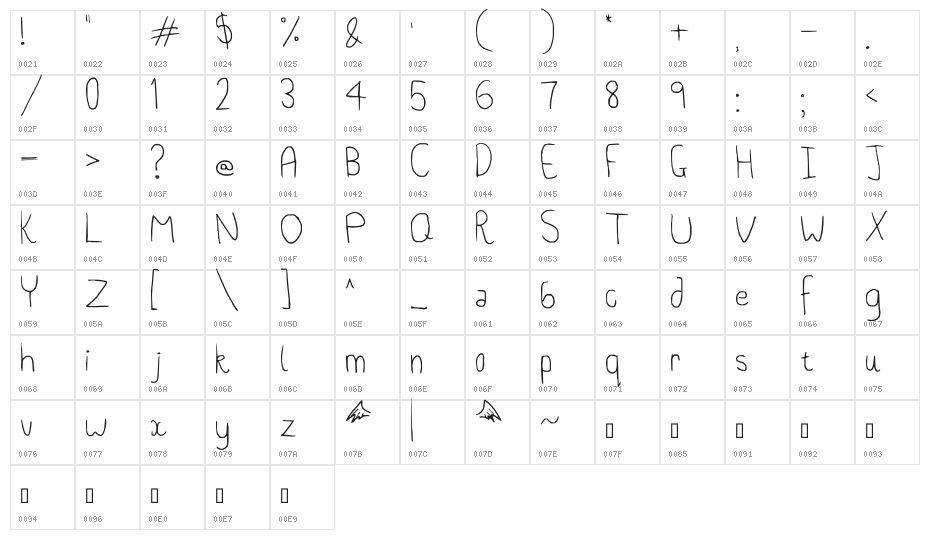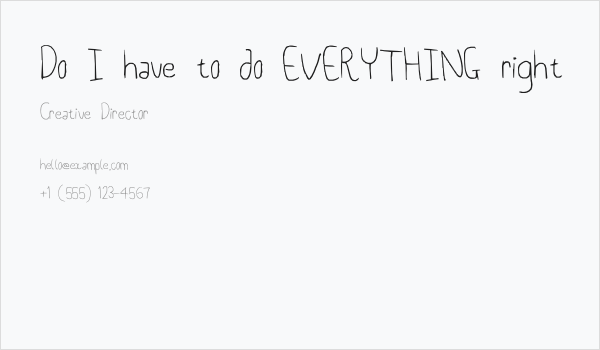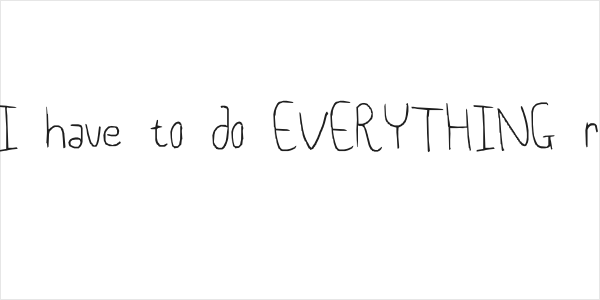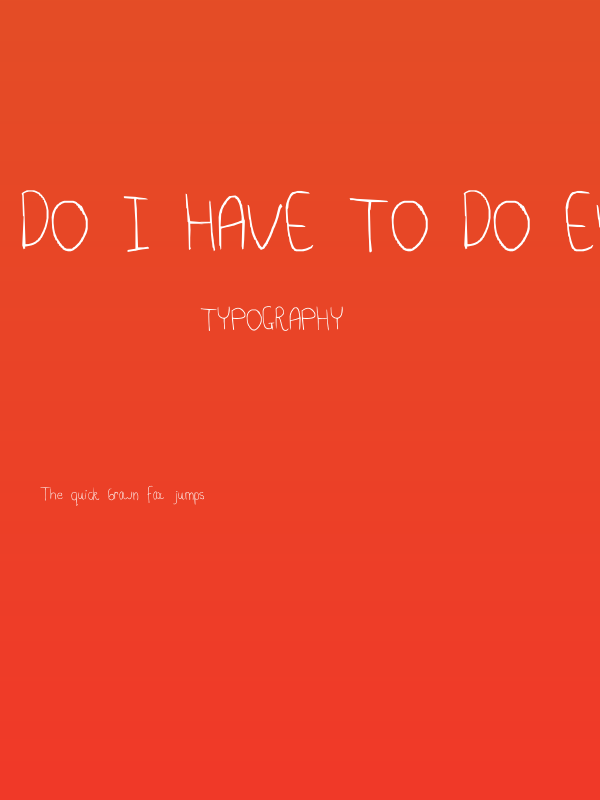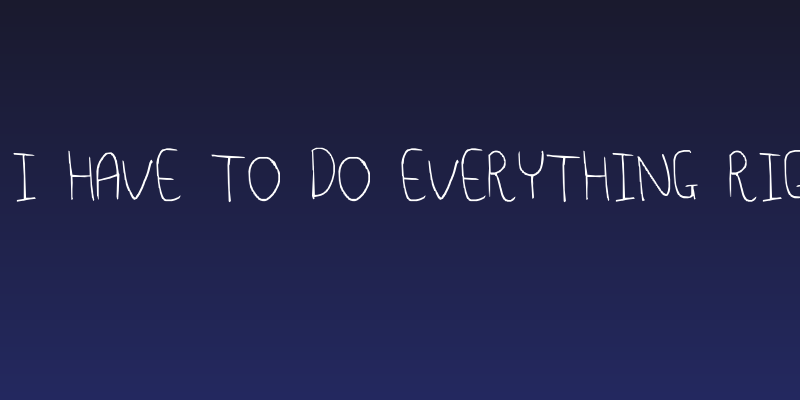
Do I have to do EVERYTHING right Font
Do I have to do EVERYTHING right Description
This font features a playful and casual handwritten style, characterized by its irregular strokes and informal appearance. The letters are slightly uneven, giving it a personal and approachable feel. The uppercase and lowercase letters maintain a consistent style, with rounded edges and a natural flow. Numbers and special characters are designed to match the overall aesthetic, ensuring a cohesive look. This font is ideal for projects that require a touch of personality and creativity, such as greeting cards, invitations, or personal branding.
| Proposed Projects | Ideal for greeting cards, invitations, personal branding, and creative projects. |